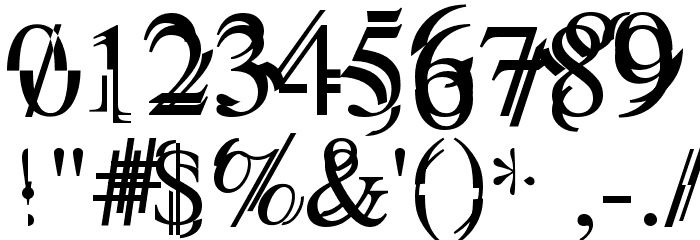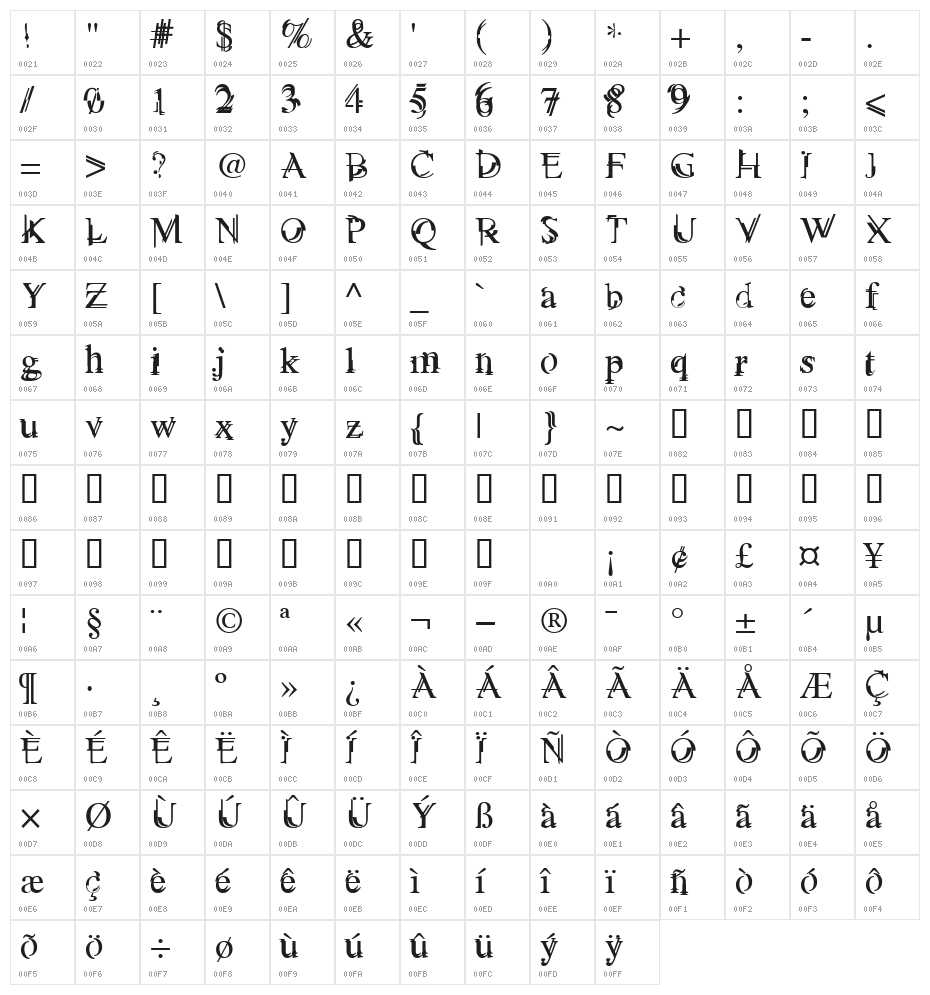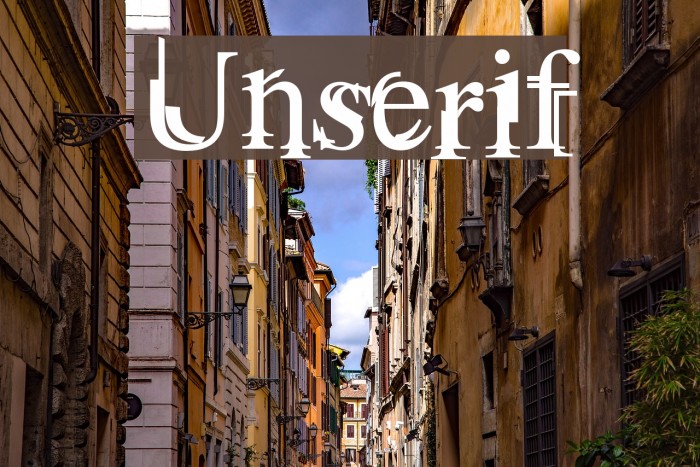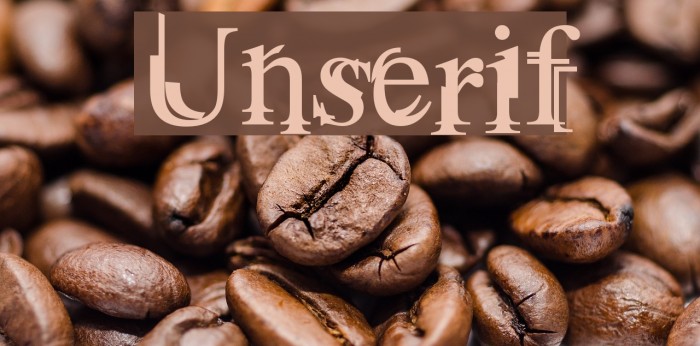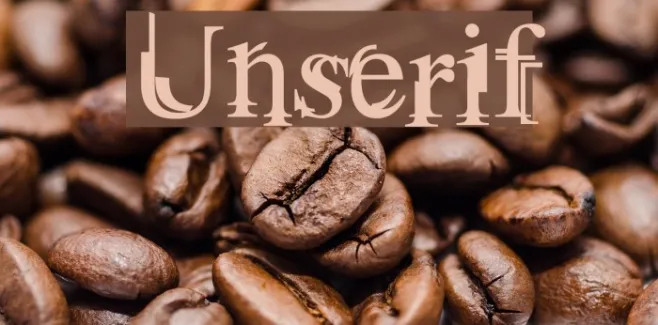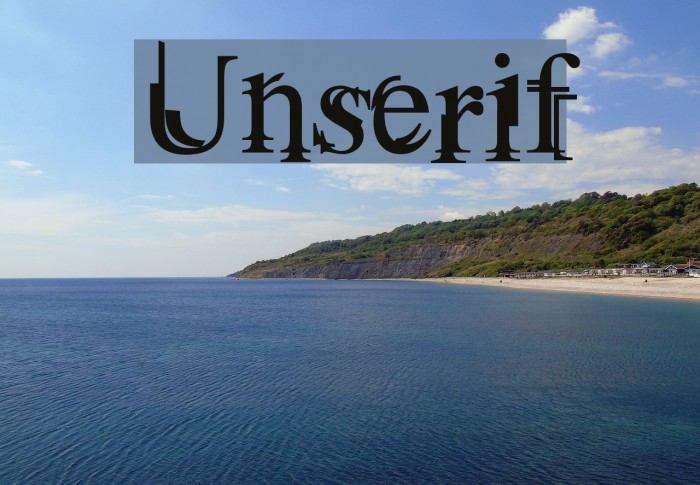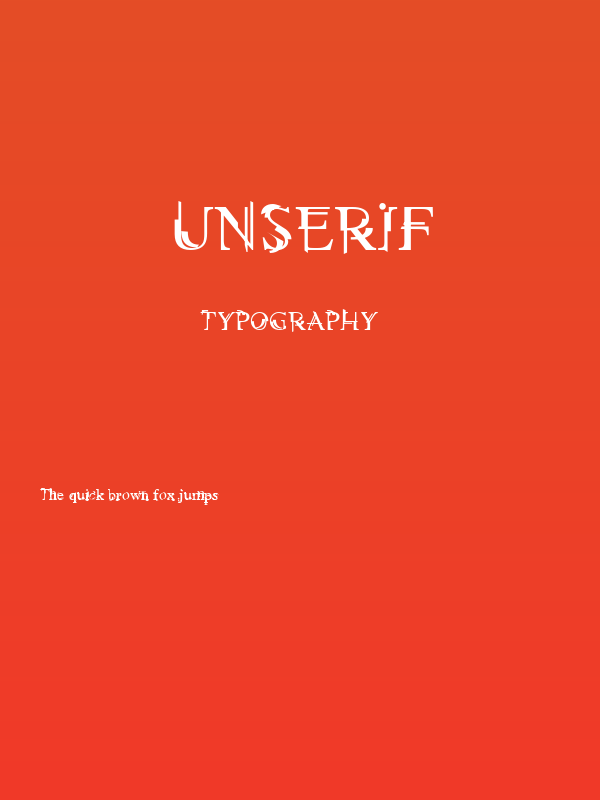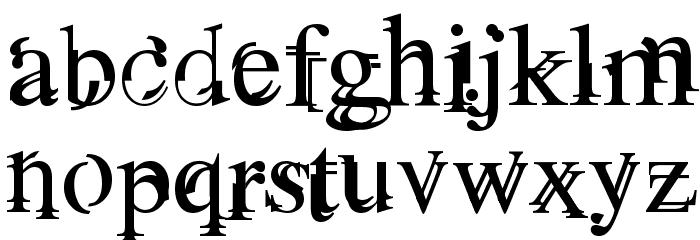
Unserif Font
Unserif Description
This font presents a bold and dynamic style with a unique twist on traditional serif elements. Each character features sharp, angular serifs and a distinct, edgy design that gives it a modern and somewhat rebellious feel. The uppercase letters are particularly striking, with exaggerated curves and angles that create a sense of movement and energy. Lowercase letters maintain this boldness, offering a consistent visual impact across all text. Numbers and special characters are equally stylized, ensuring a cohesive look throughout. The font's high contrast in stroke thickness adds to its dramatic appearance, making it ideal for attention-grabbing designs.
| Proposed Projects | Ideal for branding, poster design, album covers, and any project requiring a bold, modern aesthetic. |